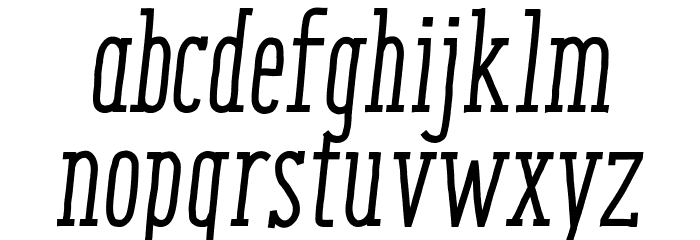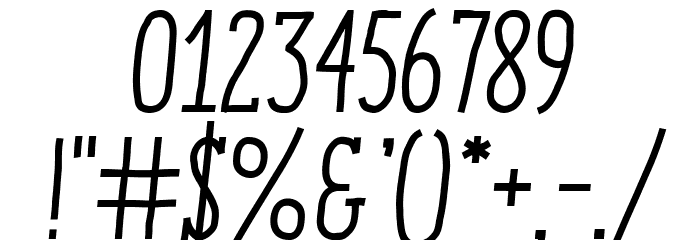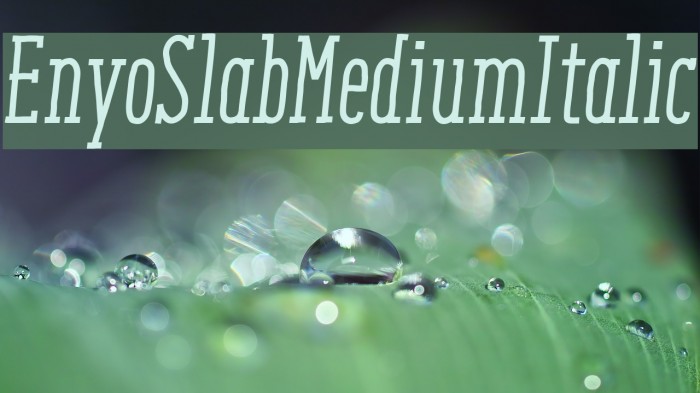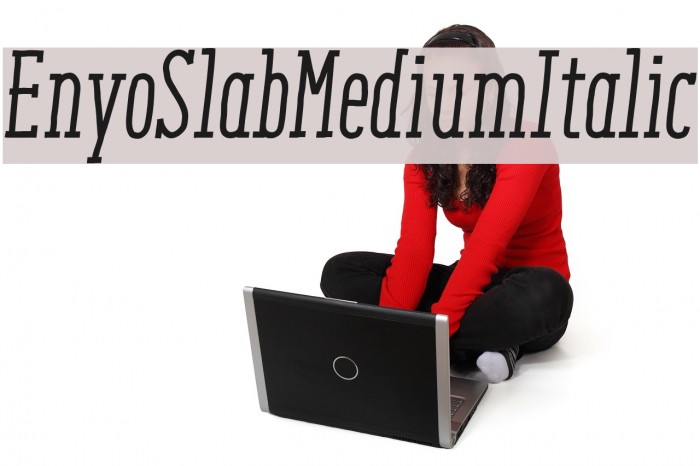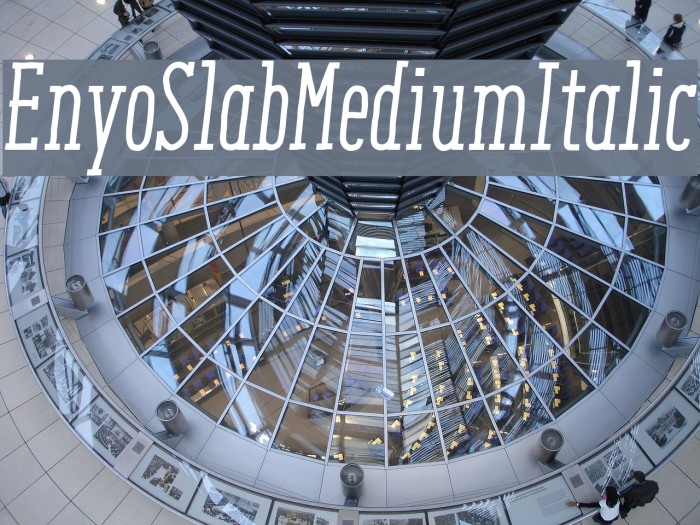
EnyoSlabMediumItalic Font
This font features a distinctive slab serif style with a medium weight and italicized form. The characters exhibit a classic yet modern appeal, with strong, pronounced serifs that add a sense of stability and tradition. The italic slant gives it a dynamic and elegant touch, making it suitable for both formal and creative applications. The uppercase letters are bold and commanding, while the lowercase letters maintain readability with their balanced proportions. Numbers and special characters are designed to complement the overall aesthetic, ensuring consistency across different uses.
A medium weight, italic slab serif font with a classic yet modern appeal.
- Proposed Projects: Ideal for editorial design, book covers, branding projects, and elegant invitations.
- Category: Slab Serif
- Overall Style: Classic
- Use Case: Headlines, Logos, Editorial design